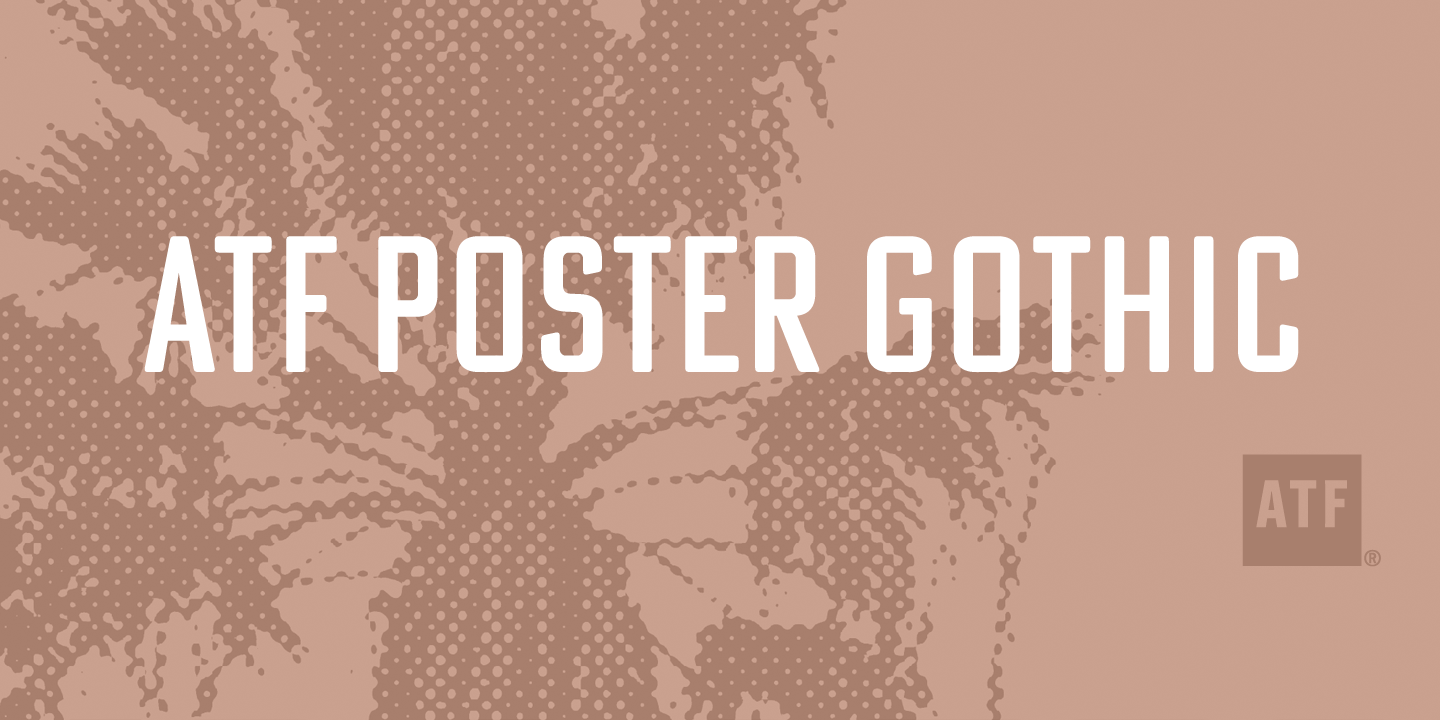
ATF Poster Gothic Font is perfect for vintage movie posters, retro advertising campaigns, circus announcements, theater productions, carnival signage, old-school barbershop logos, classic diner menus, and nostalgic brand revival projects.
What makes ATF Poster Gothic Font exciting is its timeless vintage appeal that captures the bold, commanding presence of early 20th-century American typography. This classic typeface features strong, condensed letterforms with distinctive character that instantly evokes the golden age of poster design and theatrical advertising, bringing authentic period charm to modern projects.
The ATF Poster Gothic Font family includes multiple weights from light to extra bold, plus condensed and extended variations that provide designers with comprehensive options for creating impactful vintage-style compositions.
This iconic typeface delivers exceptional visual impact while maintaining superior readability, making ATF Poster Gothic Font Free Download an essential tool for designers seeking authentic vintage aesthetics. The font's commanding presence makes it ideal for headlines and display applications requiring immediate attention. Theater directors and vintage brand enthusiasts particularly value its ability to transport audiences back to classic Americana design traditions. The meticulously crafted letterforms ensure consistent quality across all applications, from large-scale billboards to intimate poster designs. Whether you're reviving historical brand identities or creating new projects with vintage soul, this font provides the perfect balance of nostalgia and contemporary functionality. Creative professionals consistently choose this typeface for projects demanding authentic period character and timeless design appeal.